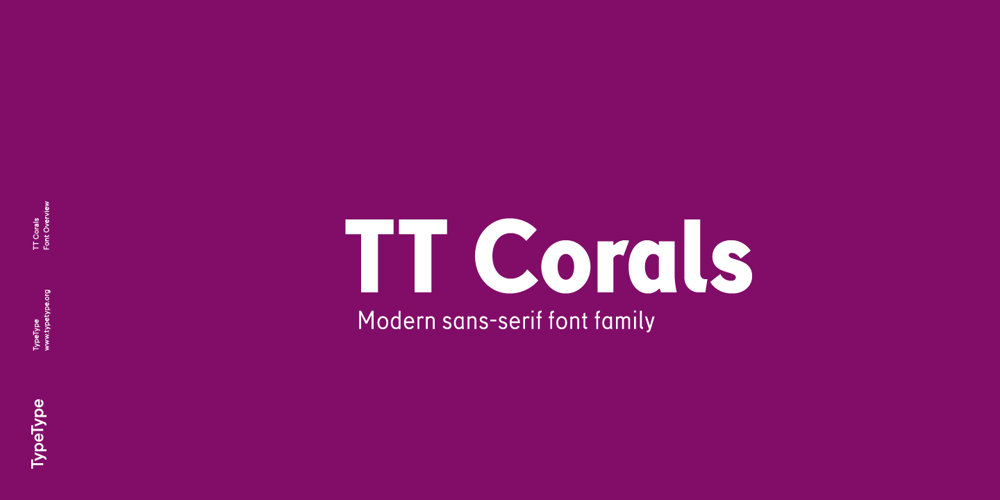
TT Corals
TT Corals font
TT Corals Font Family was designed by Ivan Gladkikh, Olexa Volochay, TypeType Team and published by TypeType. TT Corals contains 12 styles and family package options. TT Corals useful links:Graphic presentation | Customization options TT Corals is a modern humanist sans-serif which has many typical traits of the beginning of the 20th century. For increased functionality, we created 6 styles of various weights: thin, light, regular, bold, extrabold and black.Its distinctive smooth lines and separate elements allow TT Corals to be used for a variety of design applications. It fits classical literature or music perfectly, and is appropriate for any creative or innovative content. TT Corals inspires new ideas for your creativity and art with its freshness and novelty. FOLLOW US:Instagram | Facebook | Website TT Corals language support: Acehnese, Afar, Albanian, Alsatian, Aragonese, Arumanian, Asu, Aymara, Banjar, Basque, Belarusian (cyr), Bemba, Bena, Betawi, Bislama, Boholano, Bosnian (cyr), Bosnian (lat), Breton, Bulgarian (cyr), Cebuano, Chamorro, Chiga, Colognian, Cornish, Corsican, Cree, Croatian, Czech, Danish, Embu, English, Erzya, Estonian, Faroese, Fijian, Filipino, Finnish, French, Friulian, Gaelic, Gagauz (lat), Galician, German, Gusii, Haitian Creole, Hawaiian, Hiri Motu, Hungarian, Icelandic, Ilocano, Indonesian, Innu-aimun, Interlingua, Irish, Italian, Javanese, Judaeo-Spanish, Kalenjin, Karachay-Balkar (lat), Karaim (lat), Karakalpak (lat), Kashubian, Khasi, Khvarshi, Kinyarwanda, Kirundi, Kongo, Kumyk, Kurdish (lat), Ladin, Latvian, Laz, Leonese, Lithuanian, Luganda, Luo, Luxembourgish, Luyia, Macedonian, Machame, Makhuwa-Meetto, Makonde, Malay, Manx, Maori, Mauritian Creole, Minangkabau, Moldavian (lat), Montenegrin (lat), Mordvin-moksha, Morisyen, Nahuatl, Nauruan, Ndebele, Nias, Nogai, Norwegian, Nyankole, Occitan, Oromo, Palauan, Polish, Portuguese, Quechua, Rheto-Romance, Rohingya, Romanian, Romansh, Rombo, Rundi, Russian, Rusyn, Rwa, Salar, Samburu, Samoan, Sango, Sangu, Scots, Sena, Serbian (cyr), Serbian (lat), Seychellois Creole, Shambala, Shona, Slovak, Slovenian, Soga, Somali, Sorbian, Sotho, Spanish, Sundanese, Swahili, Swazi, Swedish, Swiss German, Tagalog, Tahitian, Taita, Tatar, Tetum, Tok Pisin, Tongan, Tsonga, Tswana, Turkish, Turkmen (lat), Ukrainian, Uyghur, Vepsian, Volapük, Võro, Vunjo, Xhosa, Zaza, Zulu.